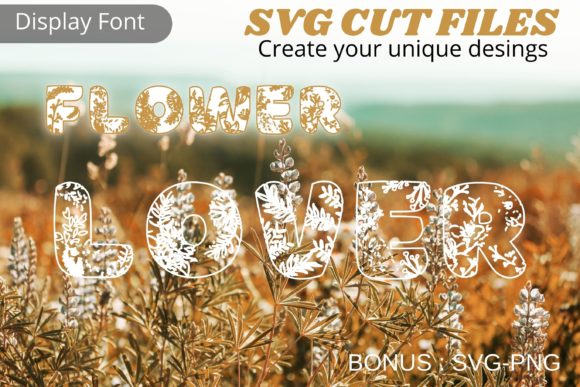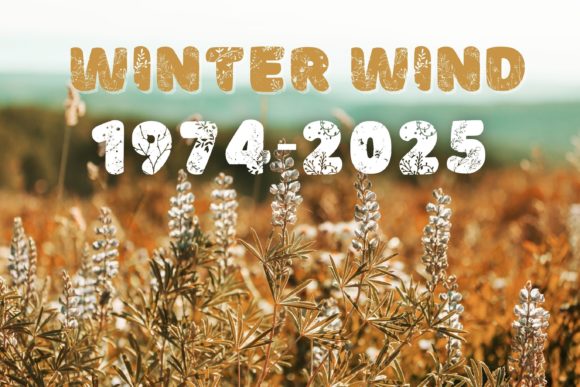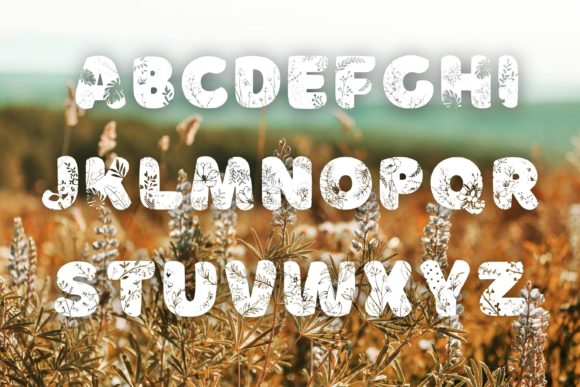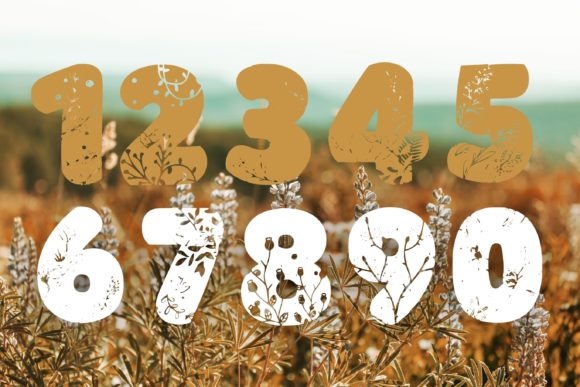
Flower Lover Font
About the Flower Lover Font
Experience the unique personality of Flower Lover Font, a font designed for impact. Flower Lover is a highly detailed, fresh and unique decorative font. You can use it for various projects, such as blog posts, logos, branding, ads, invitations, greeting cards, planners, photo albums, decorations, and much more. Add it to any of your designs, and enjoy the results!
Flower Lover’s ornate details make it ideal for headlines, short text blocks on invitations or greeting cards, and logos requiring a touch of whimsical elegance. It excels in branding for businesses focused on floristry, artisanal goods, or events with a romantic or vintage aesthetic. However, its intricate design is less suitable for body text or UI elements; the high level of detail would hinder readability in extended passages.
Pairing Flower Lover with a clean sans-serif like Lato for body copy provides excellent contrast and readability. For a more vintage feel, consider pairing it with a classic serif such as Garamond. A playful script font, such as Allura, could also complement its decorative style for projects requiring a touch of extra flair.
Flower Lover’s overall personality is best described as elegant and playful; its ornate forms convey a sense of delicate sophistication while maintaining a lighthearted and approachable feel.